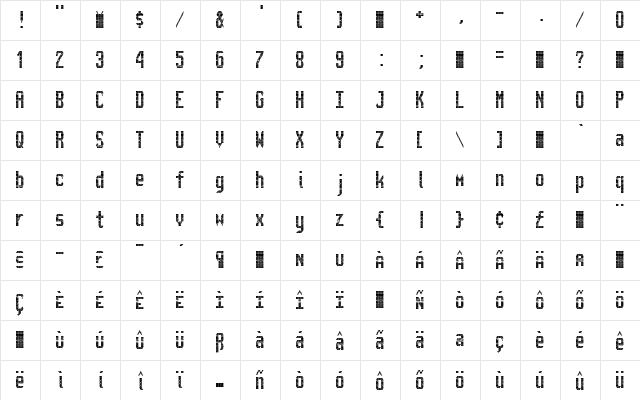
Berlin-Schnefeld Regular
Design Context for Berlin-Schnefeld Typeface
Berlin-Schnefeld offers clean, dependable letterforms without strong stylistic allegiance, making it a practical choice for designers who need flexibility.
Pro Tip: Use Berlin-Schnefeld in both headline and body roles to test its range before committing to a single application.